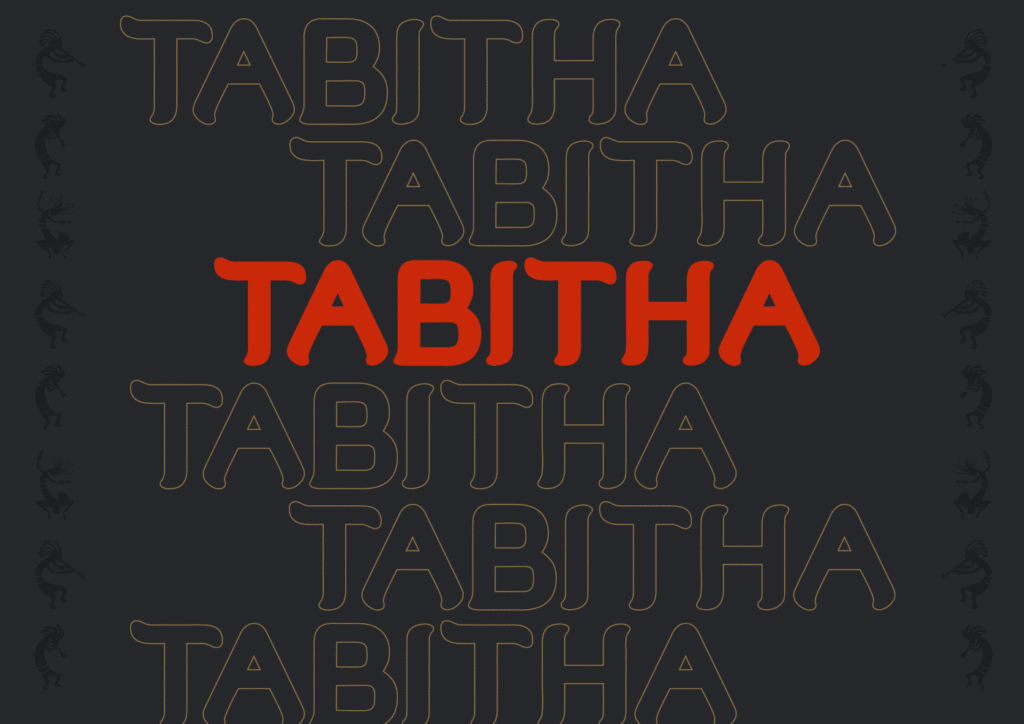
Tabitha is a biblical name from acts of the apostles in which Tabitha (gorgeous in Greek) is a women raised from the dead The font style too, is a style mixture of straight lines and curvy and rounded endings, showing the amalgamation of a powerful yet soft and fun loving aspect to it.